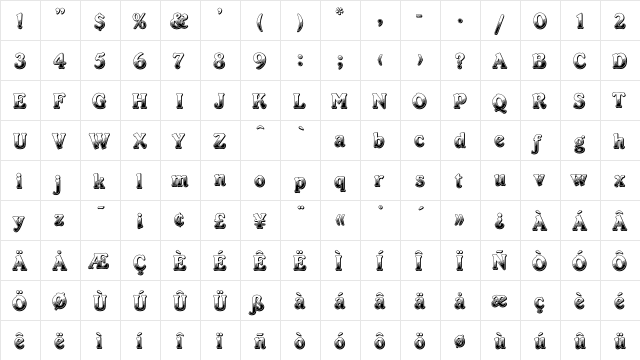
Cabaret .. Plain
Design Context for Cabaret Typeface
Cabaret is a composed and adaptable typeface that performs quietly and consistently across a wide range of design contexts.